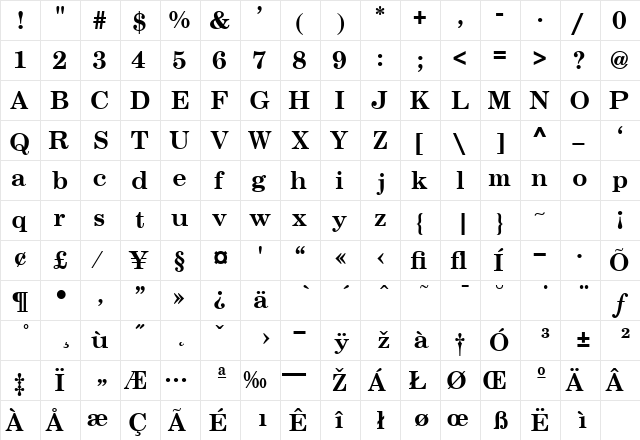
CenturySchoolbookSSK Bold
Design Context for CenturySchoolbookSSK Typeface
CenturySchoolbookSSK is a composed and adaptable typeface that performs quietly and consistently across a wide range of design contexts. The heavy weight commands attention and anchors typographic hierarchies.